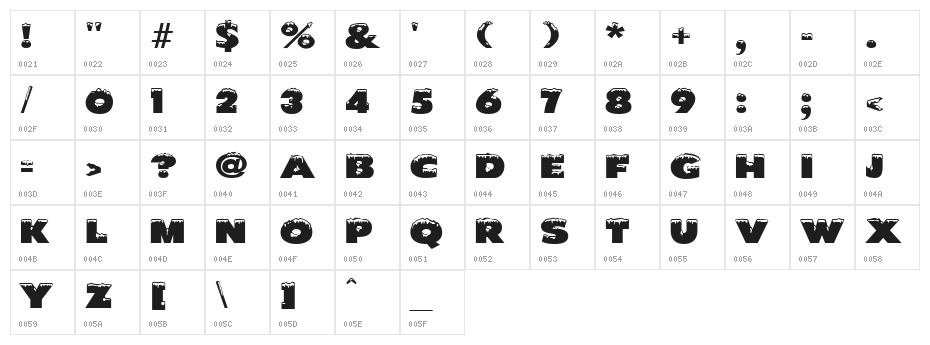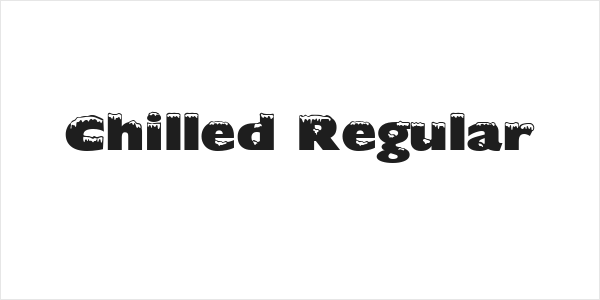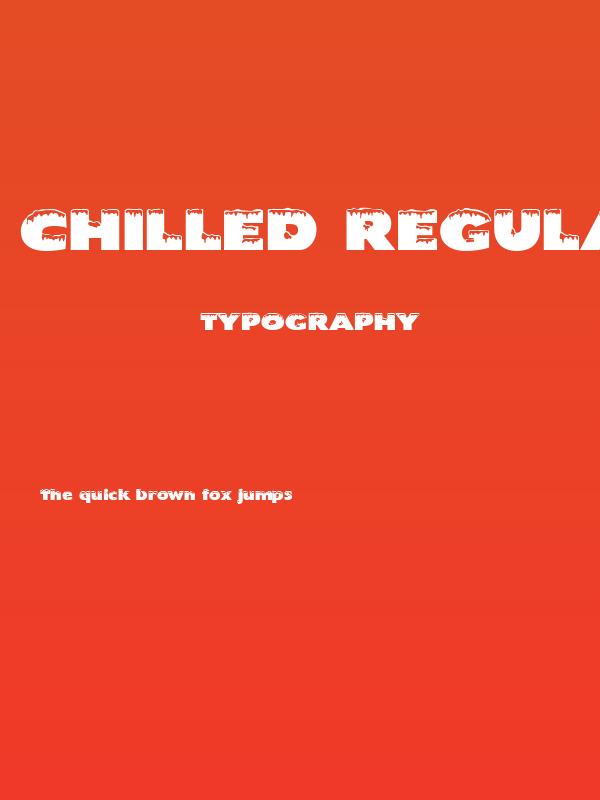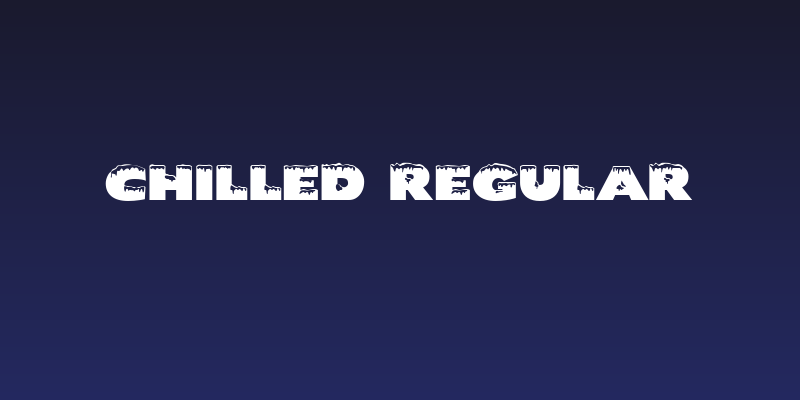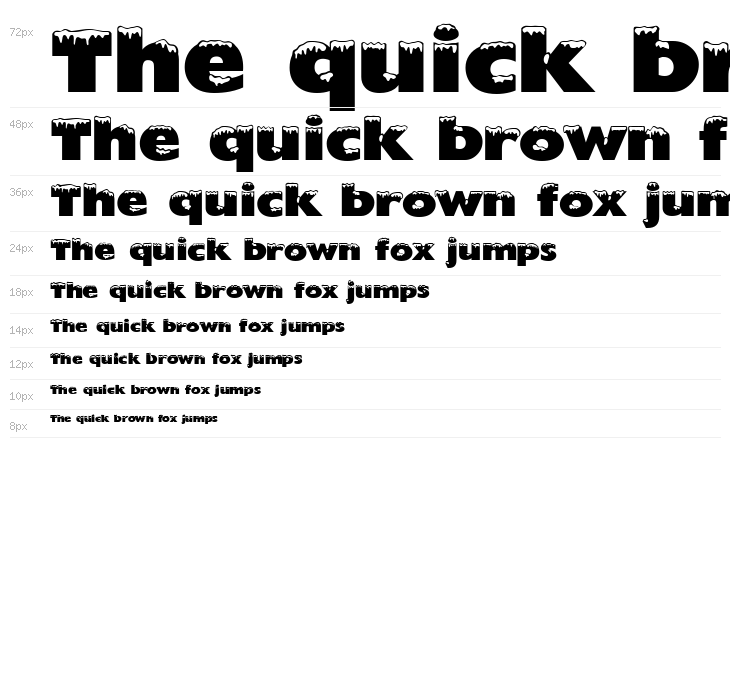
Chilled Regular Font
Chilled Regular Description
This font features a playful and decorative style with a unique winter theme. Each character is adorned with snow-like accents on the top, giving it a chilled and frosty appearance. The bold and thick strokes make it highly visible and eye-catching, suitable for festive and seasonal designs. The uppercase and lowercase letters maintain a consistent style, while the numbers and special characters follow the same thematic design. This font is perfect for creating a fun and engaging atmosphere in any project.
| Proposed Projects | Ideal for holiday cards, winter-themed posters, festive banners, and playful branding. |